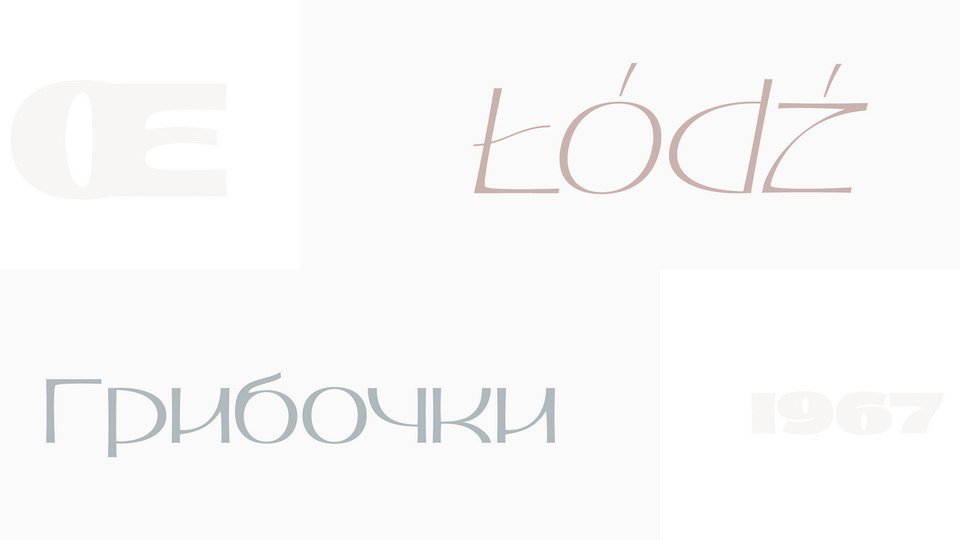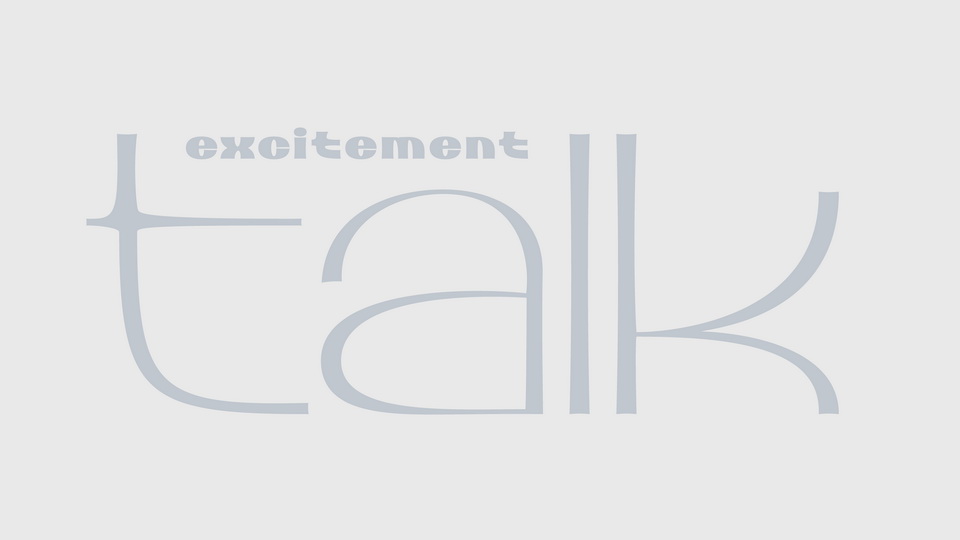
Petale is an elegant experimental typeface with a pretty stylish look.
You may like it to use in magazine designs, posters, websites, packaging, branding, logo, and so on. Petale can grant your work some graceful modern touch with a brutalist-feminine note.